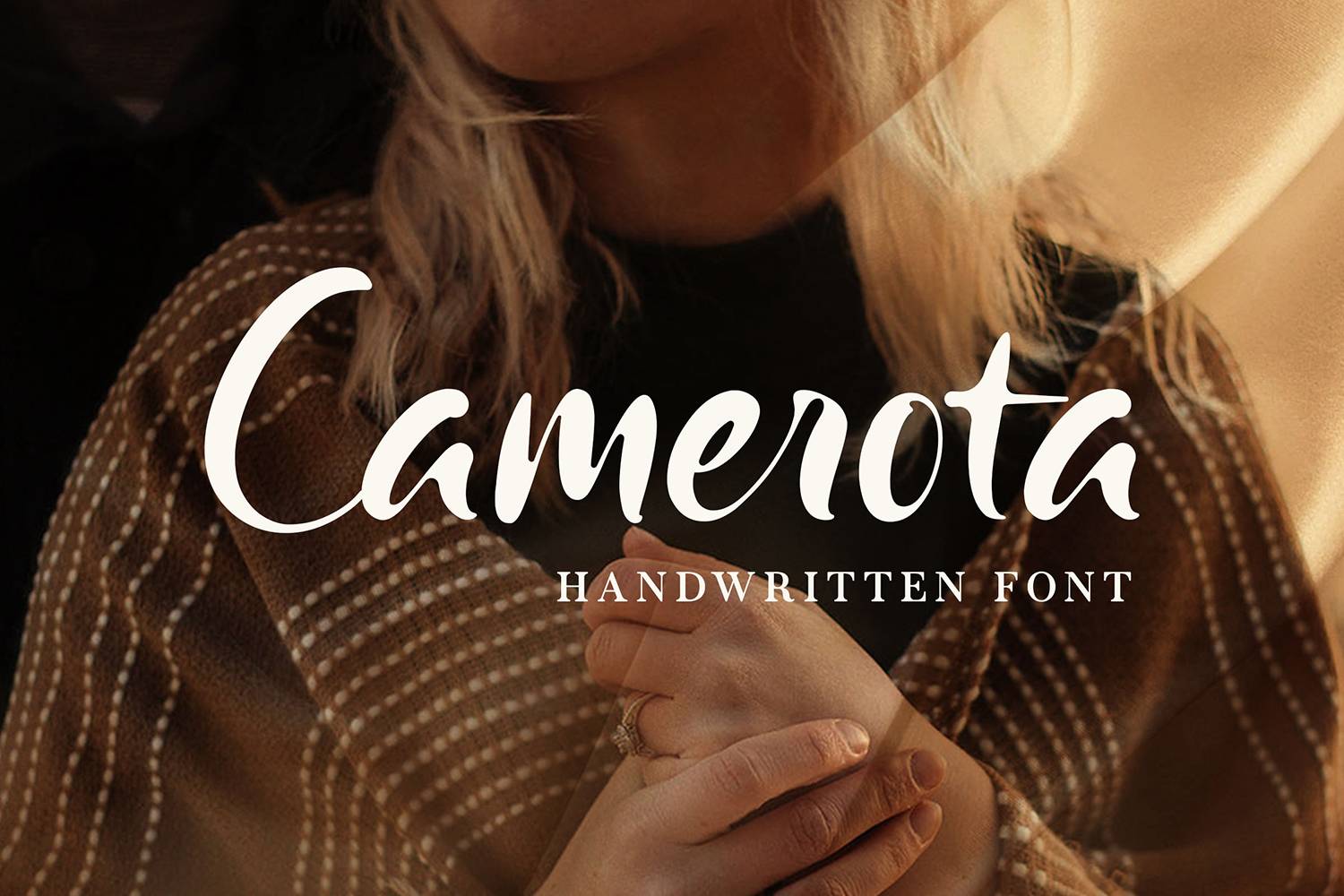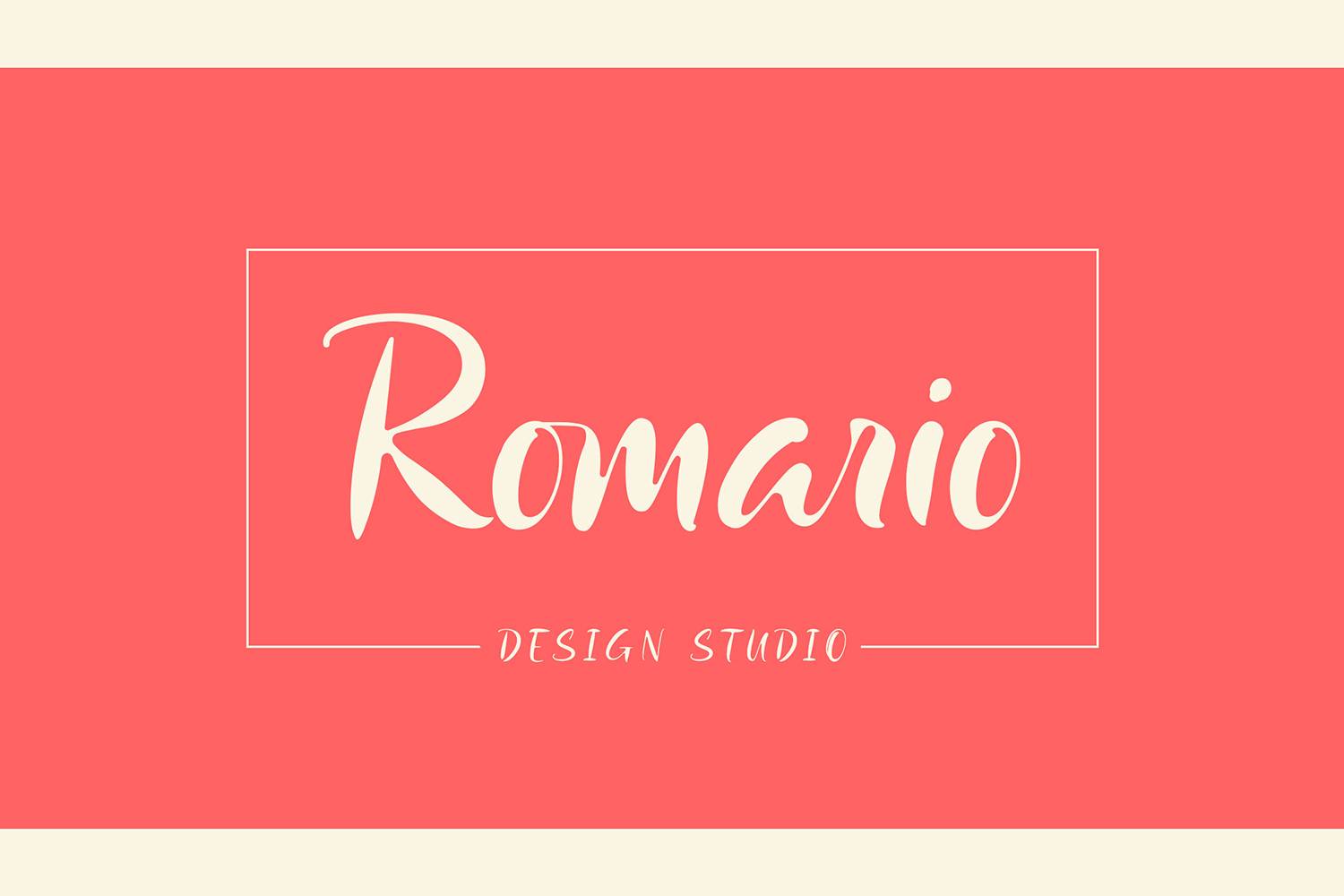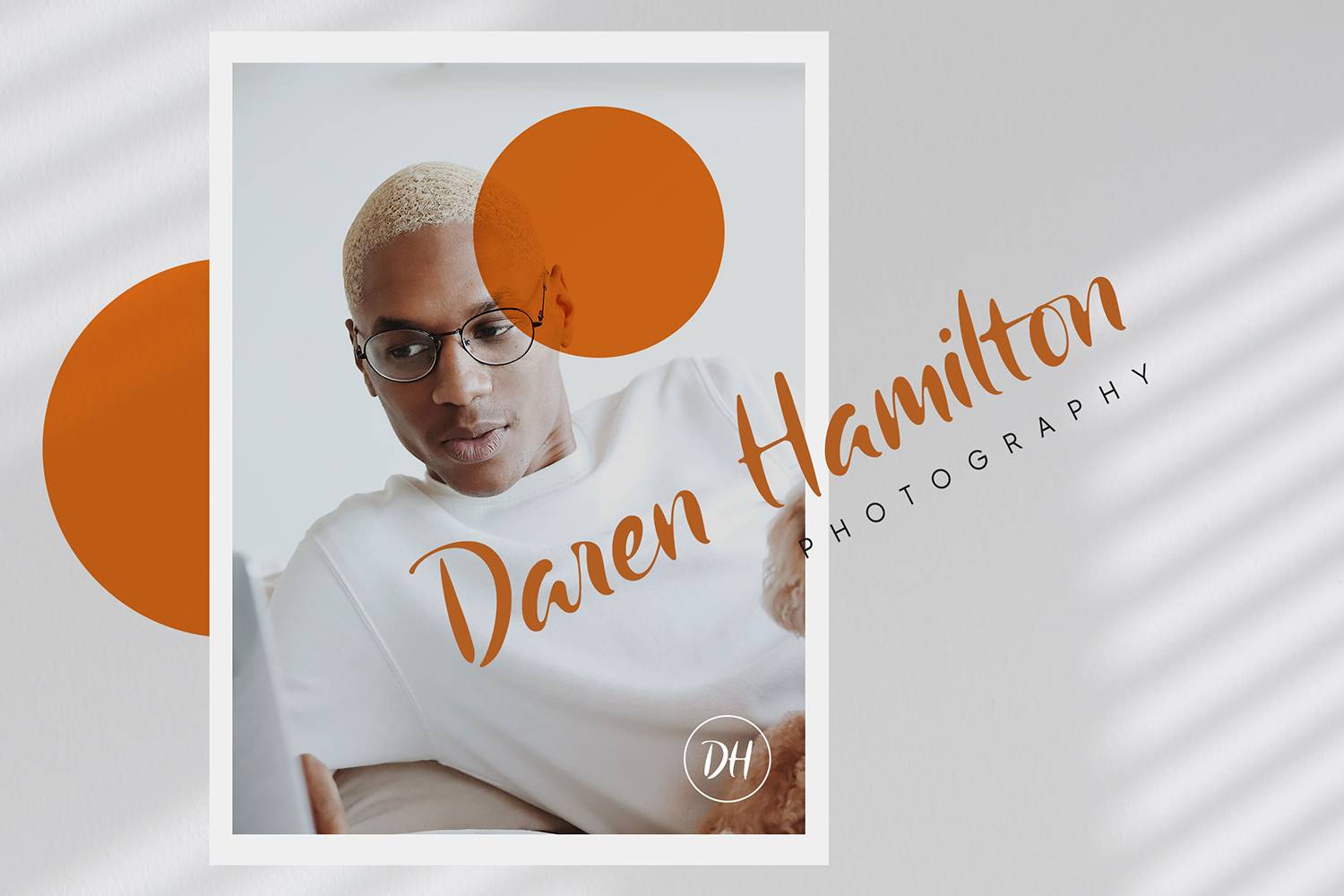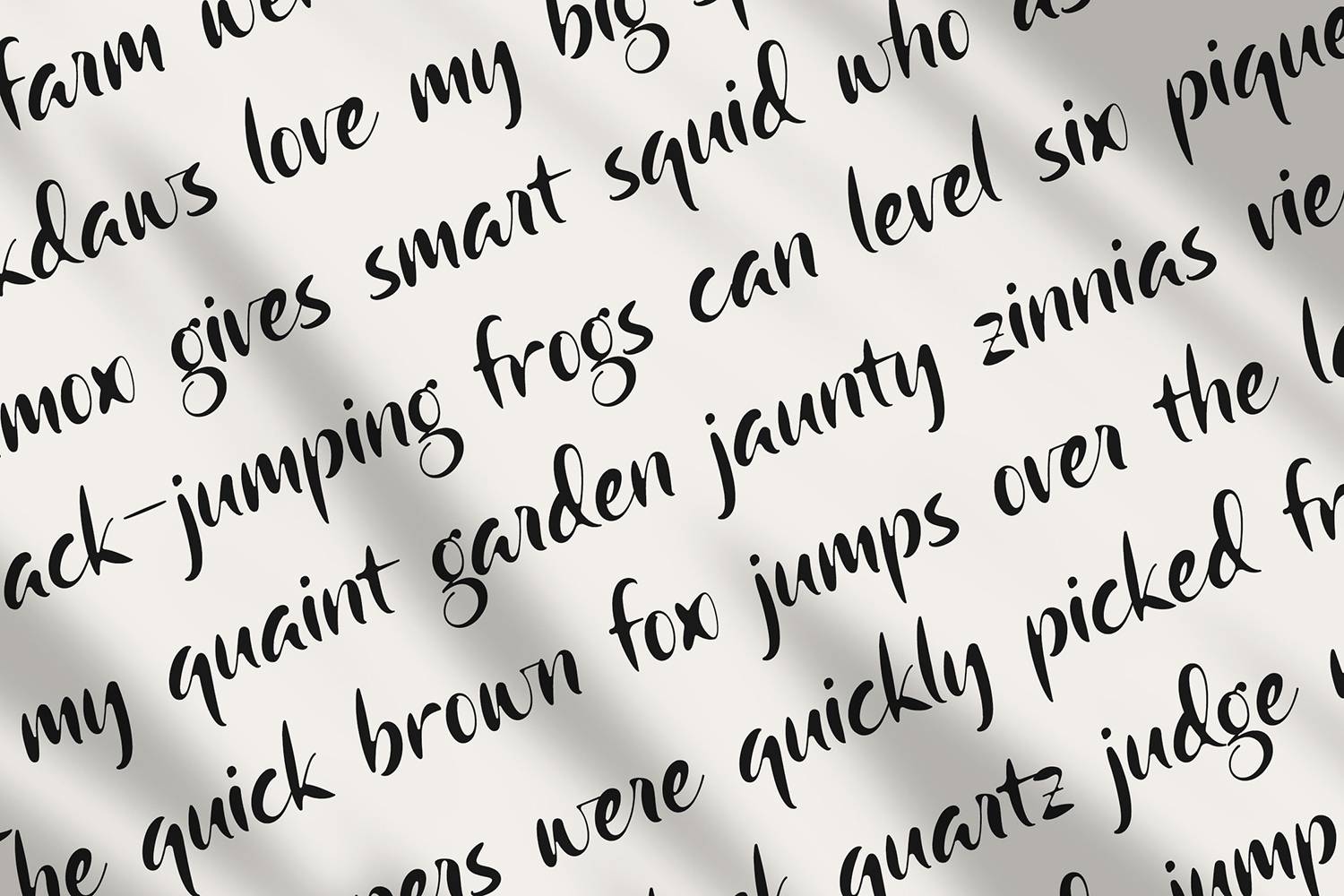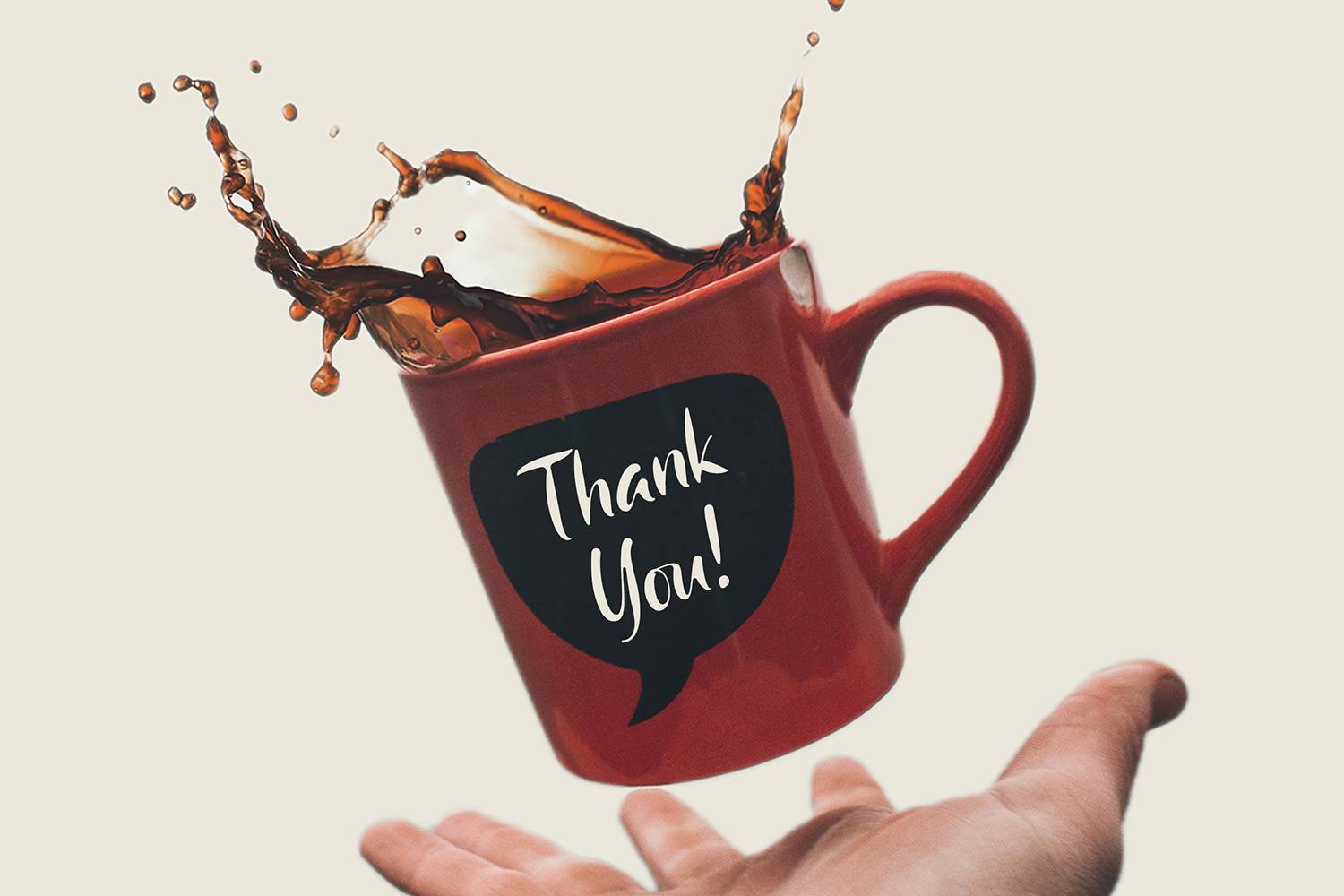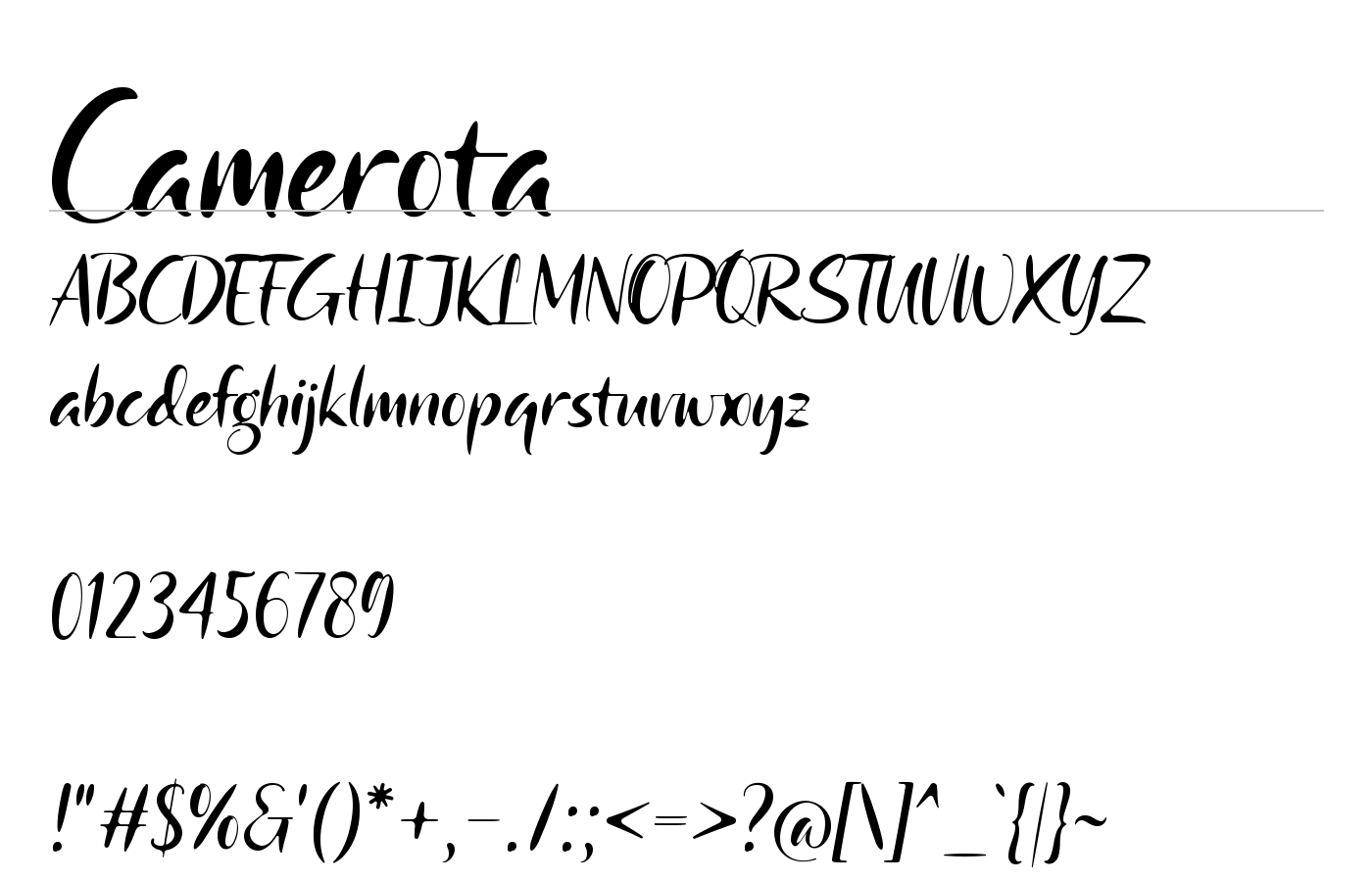
Camerota is an elegant and expressive script font with a lively, hand-painted feel characterized by its smooth, flowing strokes and moderate contrast. Its upright, slightly italic style and varied letterforms add personality and warmth, making it perfect for creative branding, invitations, and editorial headlines where a personal and artistic touch is desired. This font brings a sophisticated yet approachable vibe, ideal for fashion, lifestyle, and boutique designs seeking a unique, handcrafted look.
Camerota Font
About Camerota Font
| Font family | Camerota Font |
| Designer | Dwi Ahidian |